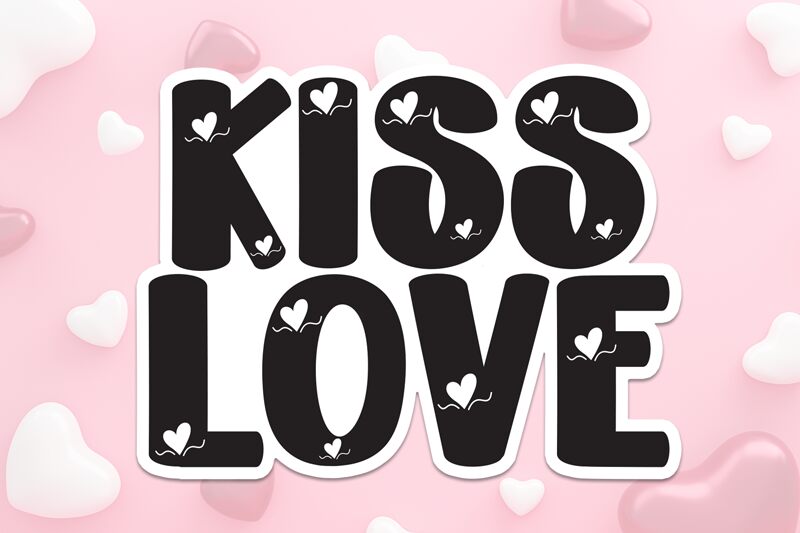
Kiss Love font, designed by Scratchones, is a playful holiday font presented as an exclusive freebie for personal use. As the name suggests, this font has a romantic theme present in every letter – despite the absence of sharp forms, its impactful presence is remarkable. Its friendly aesthetics feature several soft curves, and the occasional decorative element adds an interesting spark. A lively mood is what all Kiss Love related projects achieve.
A variety of design projects will adorn Kiss Love as a new exquisite center of attention. Its exceptional decorative elements will embellish holiday cards, invitations, posters, greeting cards, and magazine covers. In addition, you can use it for packaging and branding.